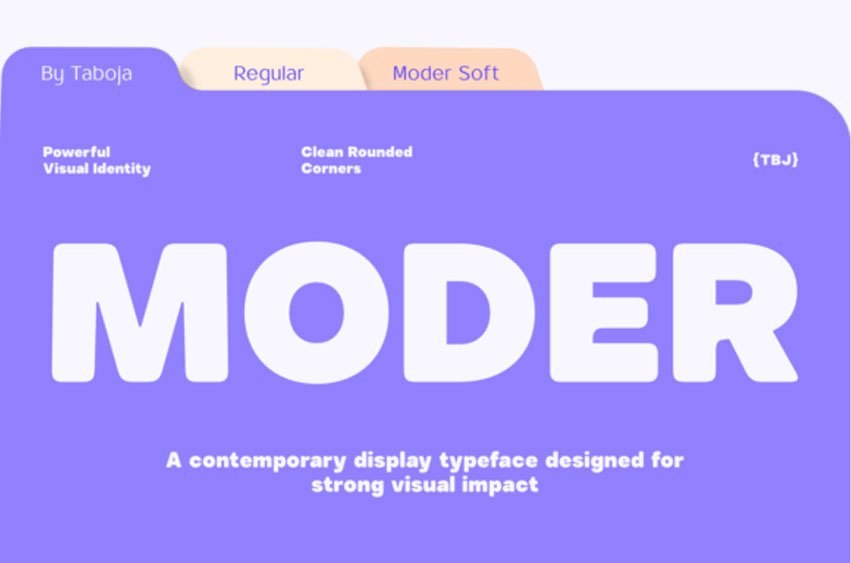
Moder Font
Moder Font is a contemporary rounded display typeface designed to deliver a bold and modern visual identity. Created with smooth curves and clean rounded corners, this typeface offers a friendly yet powerful character that stands out in large headlines and modern branding.
Whether used for branding, posters, packaging, social media graphics, or editorial layouts, Moder brings a confident and contemporary tone to your typography.